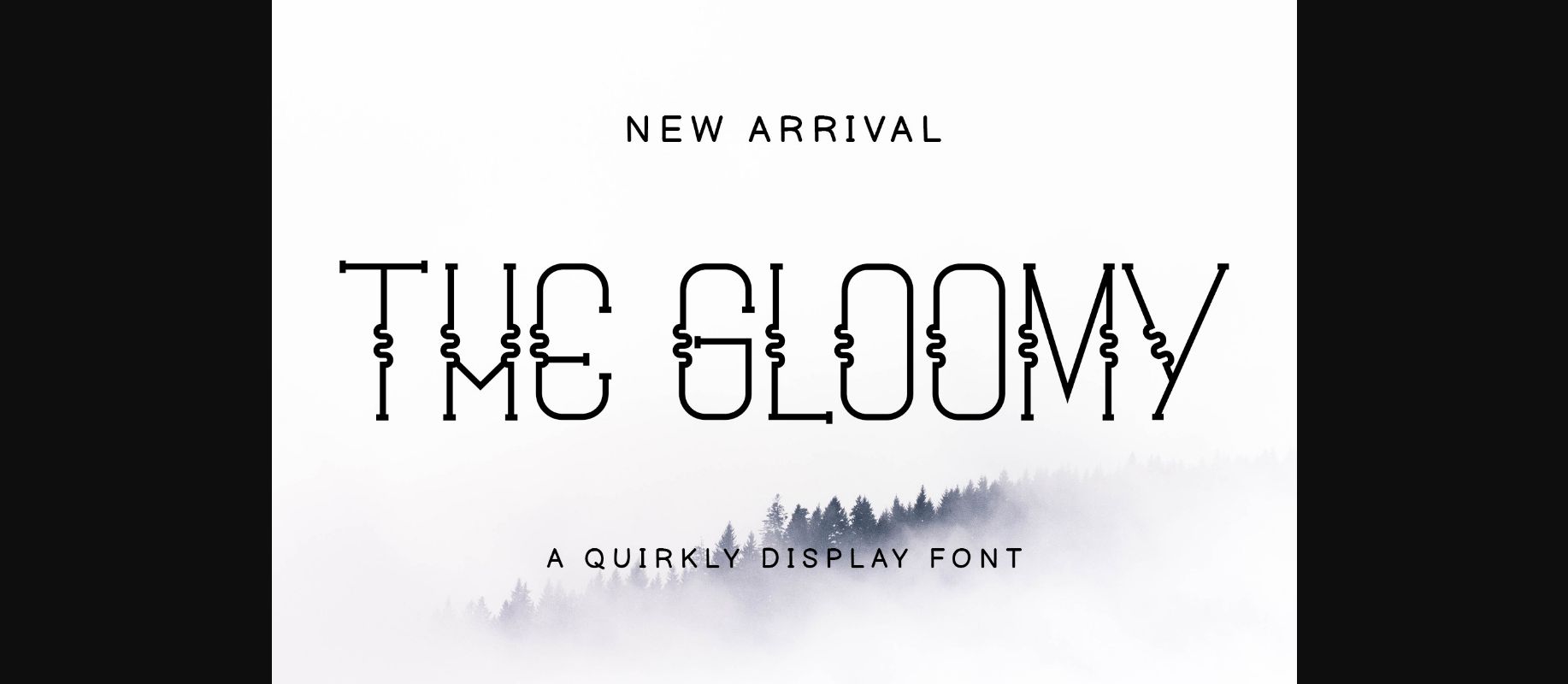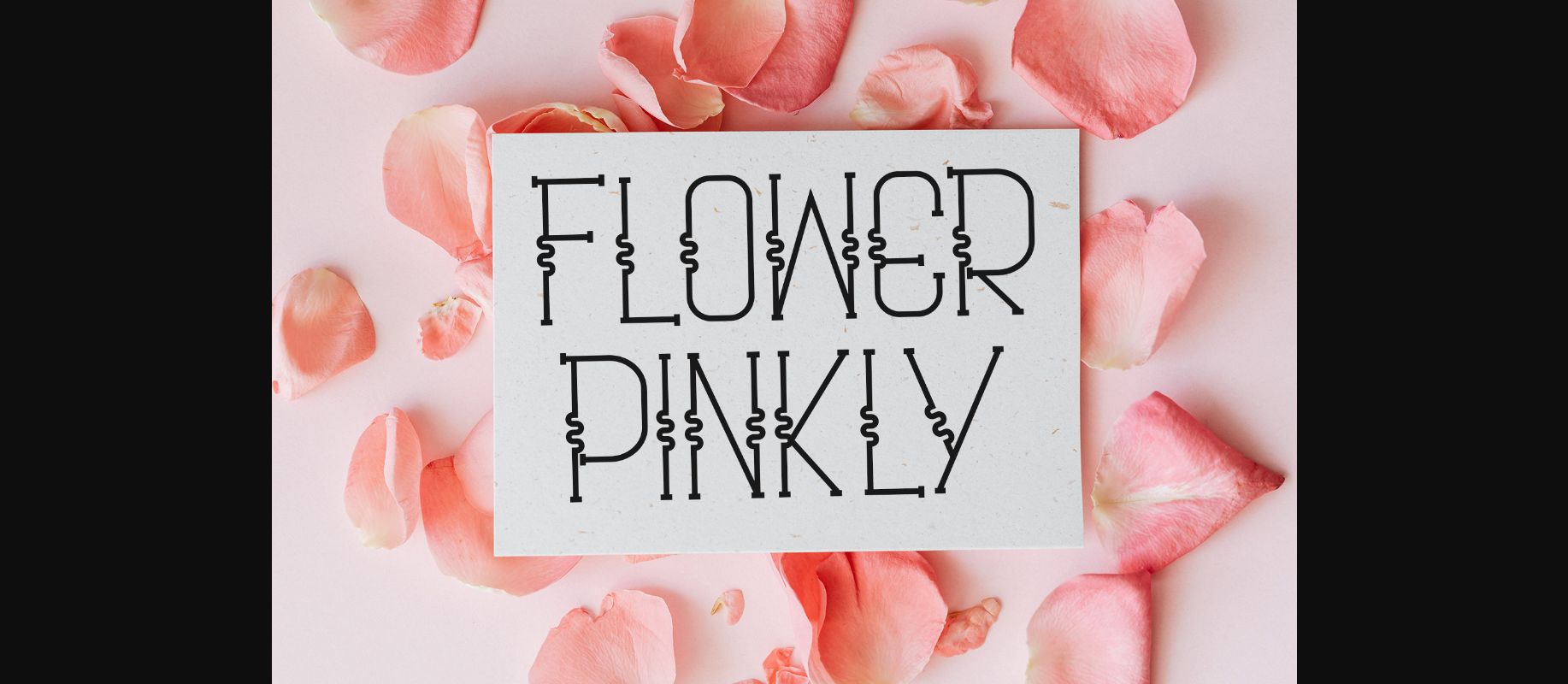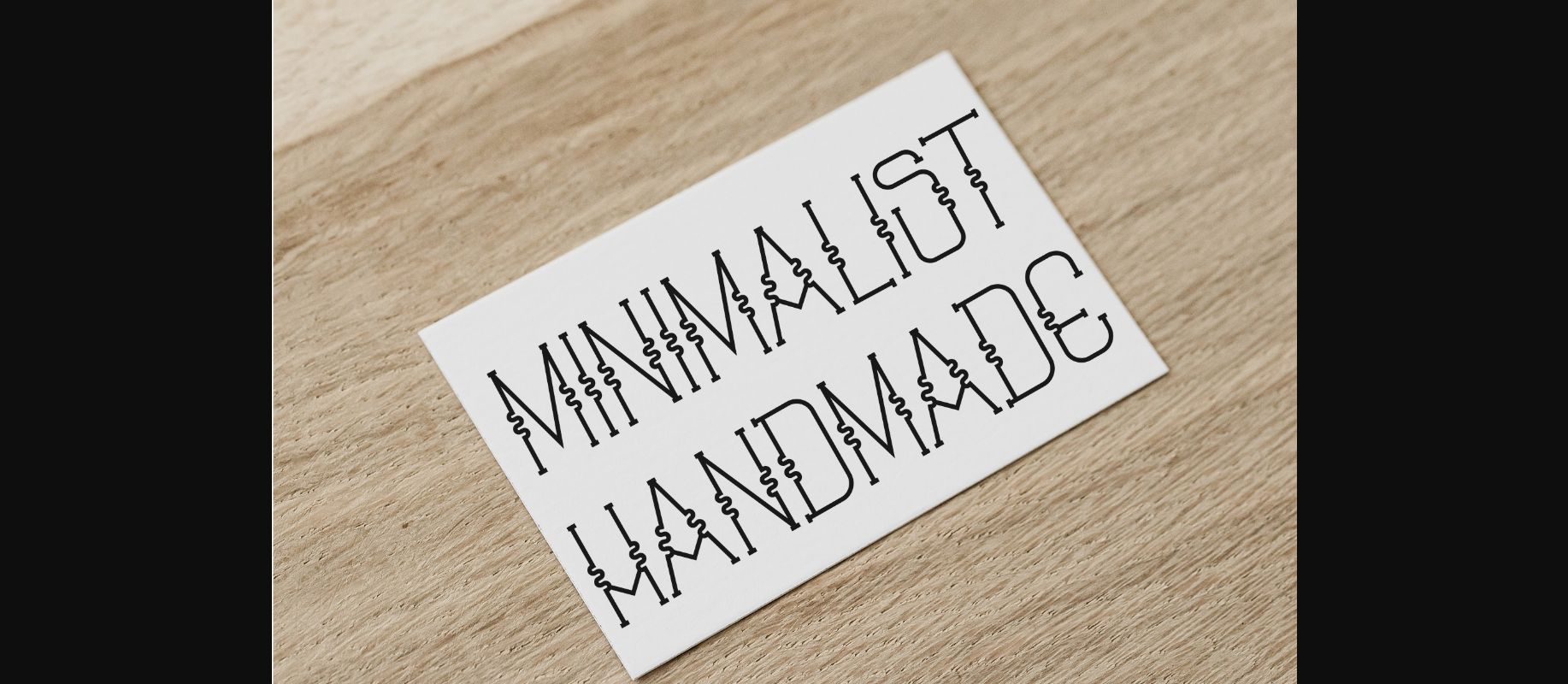
The Gloomy Font
“The Gloomy” is a minimalistic and unique decorative font. It can easily be matched to a large set of projects, so add it to your creative ideas, and notice how it makes them stand out!